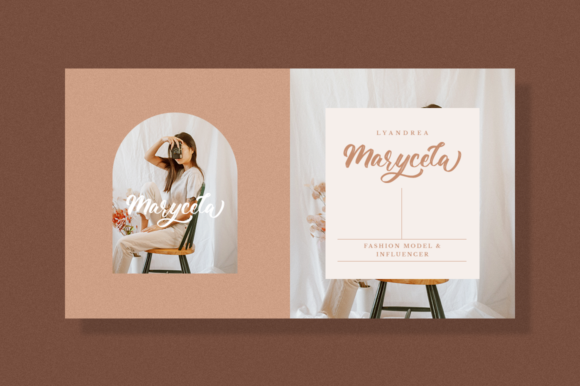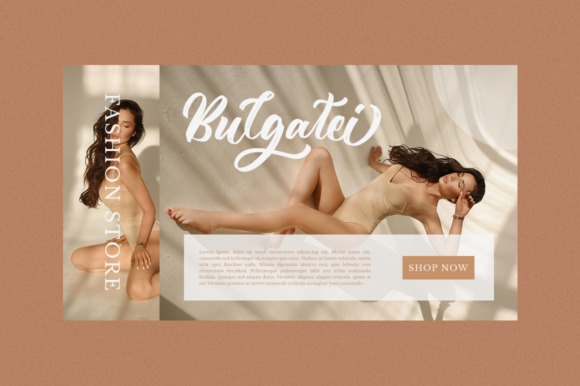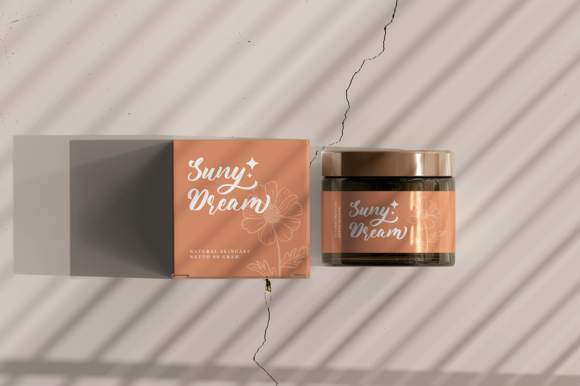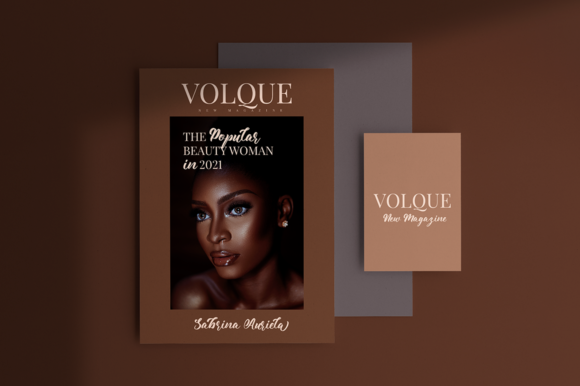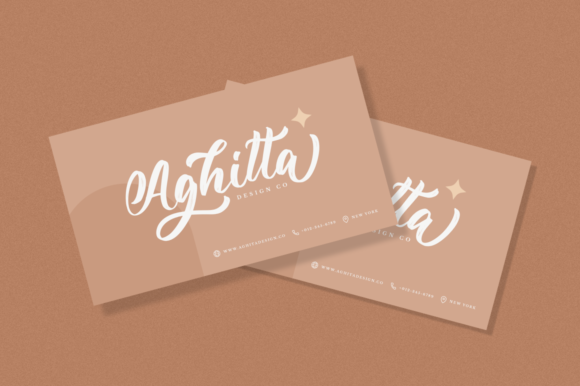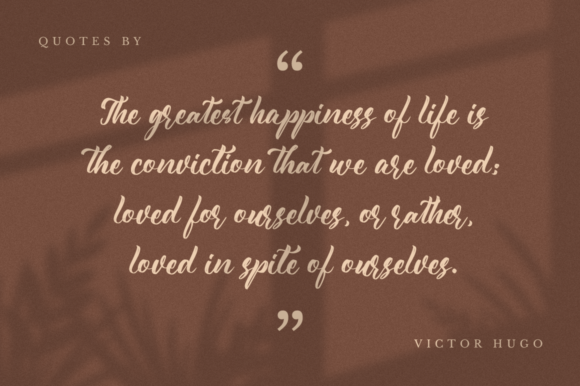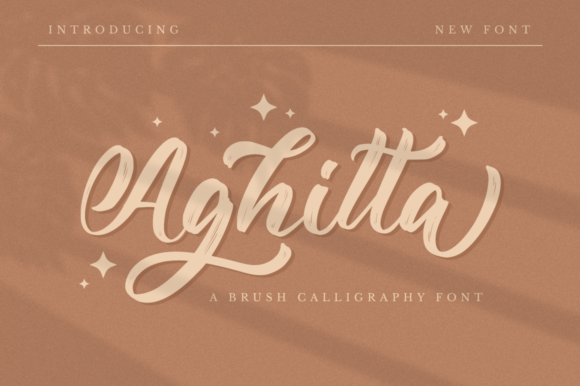
Discover the Elegance of Aghitta Font: A Lovely Brushed Script for Fashion and Editorial Designs
In the world of typography, fonts play a crucial role in defining the aesthetic and tone of a design. For designers and crafters looking for a font that exudes elegance and sophistication, Aghitta Font is an excellent choice. This lovely and flowing brushed script font is perfect for fashion branding, editorial designs, and any project that requires a touch of refinement.
What Makes Aghitta Font Special?
Aghitta Font is defined by its smooth curves and fluid strokes, which give it a unique and captivating appearance. The font’s design is inspired by traditional brushed scripts, but with a modern twist that makes it perfect for contemporary designs. Whether you’re working on a fashion brand’s logo, an editorial layout, or a craft project, Aghitta Font is sure to add a touch of elegance and sophistication.
Key Features of Aghitta Font
• Smooth Curves: Aghitta Font features smooth, flowing curves that give it a beautiful and elegant appearance.
• PUA Encoded: The font is PUA (Private Use Area) encoded, which means you can access all the glyphs and swashes with ease.
• Brushed Script Style: Aghitta Font has a lovely brushed script style that is perfect for fashion branding and editorial designs.
• Fashion and Editorial Friendly: The font is specifically designed for fashion branding and editorial designs, making it a great choice for designers working in these fields.
Why Choose Aghitta Font?
• Unique and Elegant: Aghitta Font has a unique and elegant appearance that will set your designs apart from others.
• Versatile: The font is versatile and can be used for a wide range of projects, from fashion branding to editorial designs.
• Easy to Use: Aghitta Font is PUA encoded, making it easy to access all the glyphs and swashes.
• High-Quality: The font is designed to high-quality standards, ensuring that it will look great in any design.
How to Use Aghitta Font in Your Designs
• Pair it with Other Fonts: Aghitta Font looks great when paired with other fonts. Try pairing it with a bold sans-serif font for a striking contrast.
• Use it for Headings: Aghitta Font is perfect for headings and titles. Use it to add a touch of elegance to your designs.
• Experiment with Swashes: The font features beautiful swashes that can add a touch of sophistication to your designs. Experiment with different swashes to find the one that works best for your project.
Aghitta Font is a lovely and flowing brushed script font that is perfect for fashion branding and editorial designs. With its smooth curves and PUA encoding, it’s easy to use and adds a touch of elegance to any design. Whether you’re a designer or crafter, Aghitta Font is a great choice for any project that requires a touch of sophistication. So why not give it a try and see how it can elevate your designs?
In conclusion, Aghitta Font is a beautiful and elegant font that is sure to impress. Its unique and captivating appearance makes it perfect for designers and crafters looking for a font that exudes sophistication and refinement. With its versatility, ease of use, and high-quality design, Aghitta Font is a great addition to any designer’s toolkit.